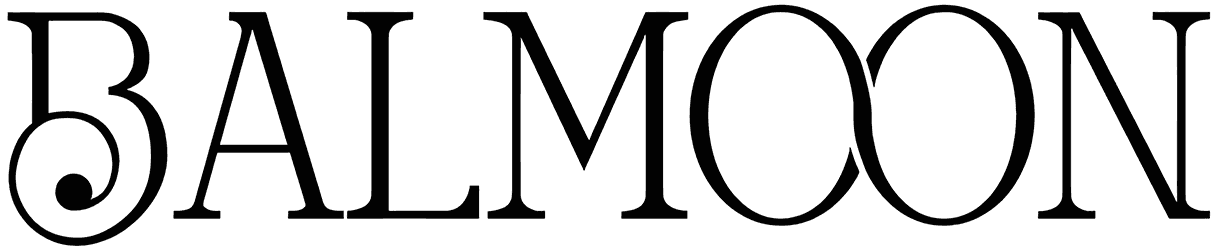
Balmoon Font
Whether you are working on a classic layout or a modern one, using a chic serif font like the one offered here would make it look noble. This elegant font’s characters have an ageless visual, and they can be used for different formal or informal projects. Use Balmoon font for a business card for a manager, a restaurant menu, and so forth, and reveal your creative skills.